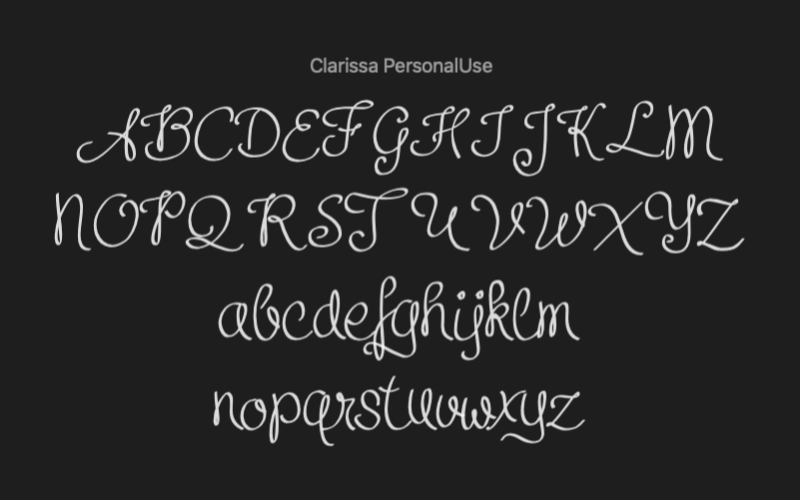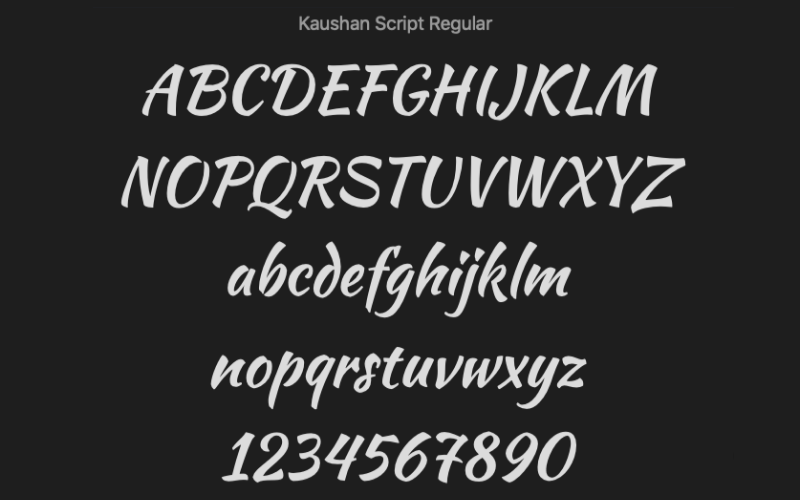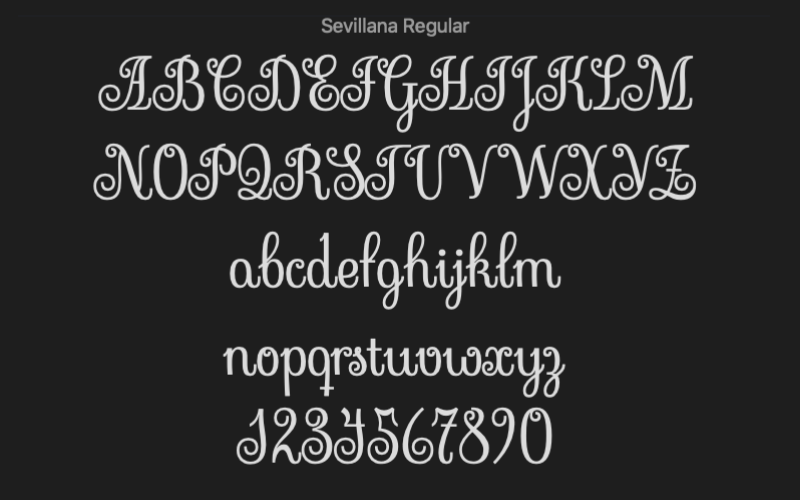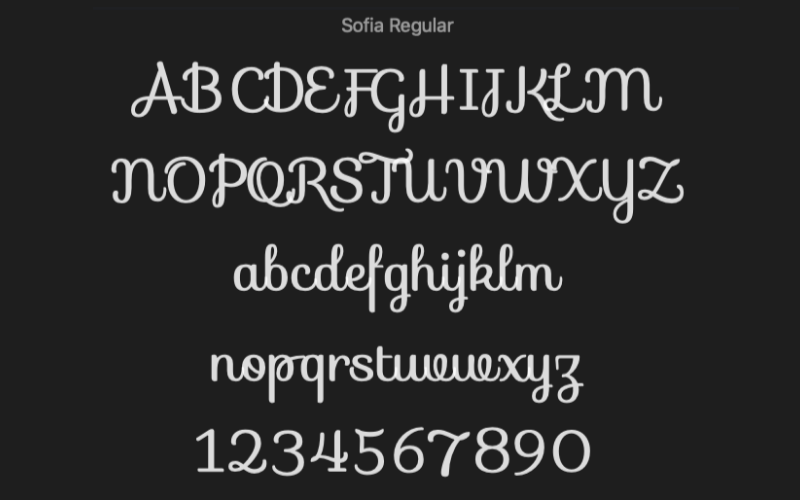
Was ist eine Skriptschrift? Und warum sollte ich es verwenden?
Admittedly, there is little confusion when people talk about technical terms like “Script Fonts” and “Cursive Fonts” in typography. It is quite hard to define script font in words especially if you don’t know much about typography. While in so many cases, typography terms are used interchangeably, it is necessary to know what they really are and what they are used for. This article, therefore, will provide answers to questions like “What is a Script Font?”, “What are the types of Script Fonts?”, “Which Script Fonts are the best” and several other related questions.
What Is A Script Font?
Script Fonts are collections of fonts that have been edited and personalized. They are mostly used in advertising, invitation cards, greeting cards, and in places where only concise writings are needed. If you surf the web regularly, you will have encountered script fonts a number of times. Script fonts are identified by flexible strokes. They are closely related to calligraphy and cursive handwriting in appearance. The true identity of a script font lies in how the letters connect to each other. With appropriate usage, some of the popular script fonts can make any content more interesting and fun to look at. With script fonts, jokes like “You bore me more than Arial 12 pt” become invalid.
Types Of Script Fonts
The best way to categorize script fonts is to group them into two – formal types and casual forms. Nonetheless, there are so many types of script fonts.
Formal Scripts
Formal script fonts are the fonts you find mostly in invitation cards and even diplomas. This is because they give a feeling of great importance and urgency. The history of these fonts can be traced back to the 1700s. They developed from the letters of those days which were written with quills.
Causal Forms
As you can probably guess, the appearance of causal script fonts is more informal. They can be traced back to the early 1900s. In contrast to the formal scripts, they have the appearance of being made with brush tips. Some causal script fonts include Blooming Elegant, Hello Beautiful, Brush Script and more.
Why You Should Use Script Fonts?
Script Fonts can be very beautiful when used in the right way. However, there are particular conditions in which script fonts are suitable. On the other hand, there are some situations in which script fonts are not ideal. The first thing you should know is that script fonts are highly decorative. Therefore their use is limited, even for formal script fonts. Script fonts are perfect for websites, invitations, greeting cards, and book covers.
However, if you use a script font on a formal document like a contract document, it defeats the whole essence. You should use a script font if the purpose of the design allows it. Designing a resume, for example, does not call for decorative fonts, thus, script fonts should not be used. If you are, however, designing a wedding invitation card, script fonts are perfect. They are suitable for wedding invitations because they bring a certain feeling of romance and importance. You should use scripts in designs that pass information across in short texts like book covers, website landing pages, and greeting cards. This means you should avoid using them in formal texts, especially bulky ones.
Another reason why you should use script fonts is that they make titles stand out any design. Have you ever visited a website, and you see a large and bold title on the landing page? Maybe you have received a wedding invitation and you noticed that the title is written in a large and decorative manner. All these are written in Script Fonts which make them stand out. Now that you know why and where you should use a script font, you should know some rules that guide their usage.
Some of the rules that guide the usage of script fonts include:
1. Do not type a script font in all capital letters
2. Do not use more than one script font in a particular text
3. Make sure there is enough space between the texts
Here’s A List Of Some Of The Best Script Fonts
There are several script fonts that might be suitable for your design purpose. However, some of the well-known script fonts include:
The Modern Script Fonts Bundle
The modern script fonts bundle includes 80+ creative fonts with gorgeous curves, kicks and curls to transform your designs. Once you add this bundle to your designer toolbox, rest assured that you won’t be searching for any more script fonts for your upcoming projects.
Great Vibes
Great vibes is a connecting script font. This means each letter flows into the next letter in a continuous way. Although script fonts are generally not used for formal designs, the Great Vibes font falls into the formal category and is perfect for invitations.
Kaushan Script
The Kaushan script is one of the script font that is closely related to calligraphic fonts. The font is relatively modern and it has become quite popular in recent times.
Sofia
Sofia Font is one of the well-known script fonts and it has a semi-connected style, which means not all letters run into each other. It falls into the casual category and it is perfect for informal designs.
Clarissa
Clarissa is one of the modern script fonts out there and it is becoming increasingly popular, especially among graphic designers. What is really special about this font is that it can be used for a variety of designs including custom cloth designs and invitations. This free font is only meant for personal use.